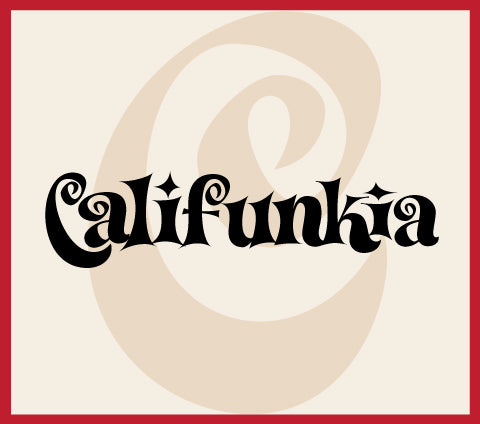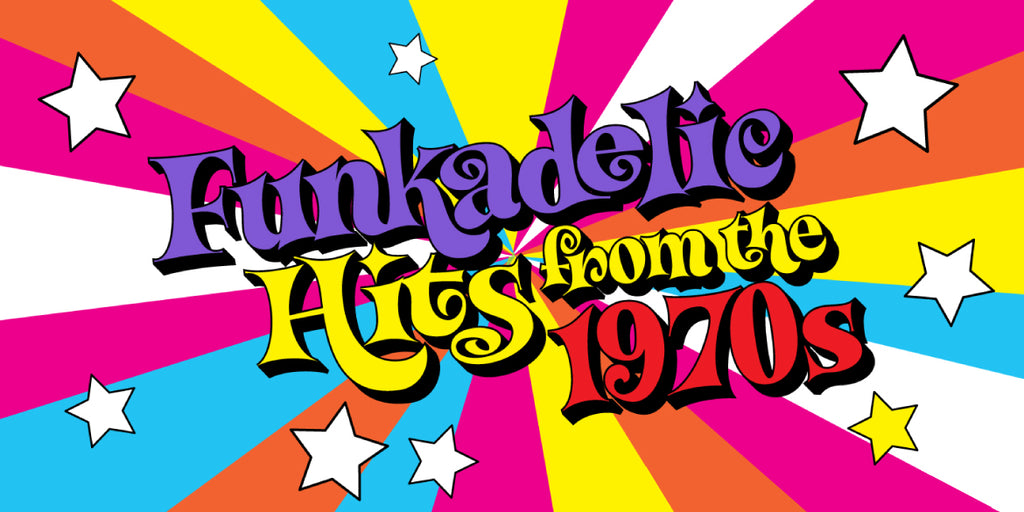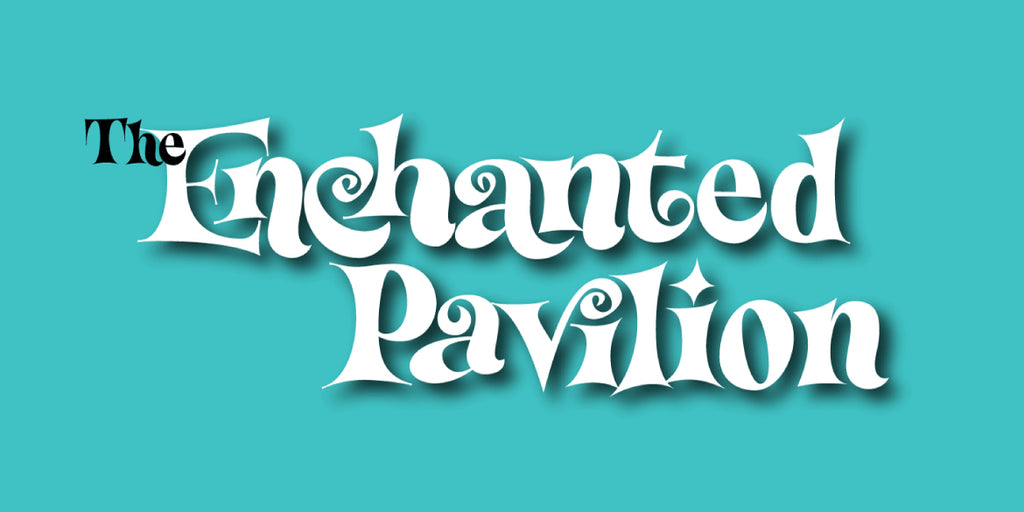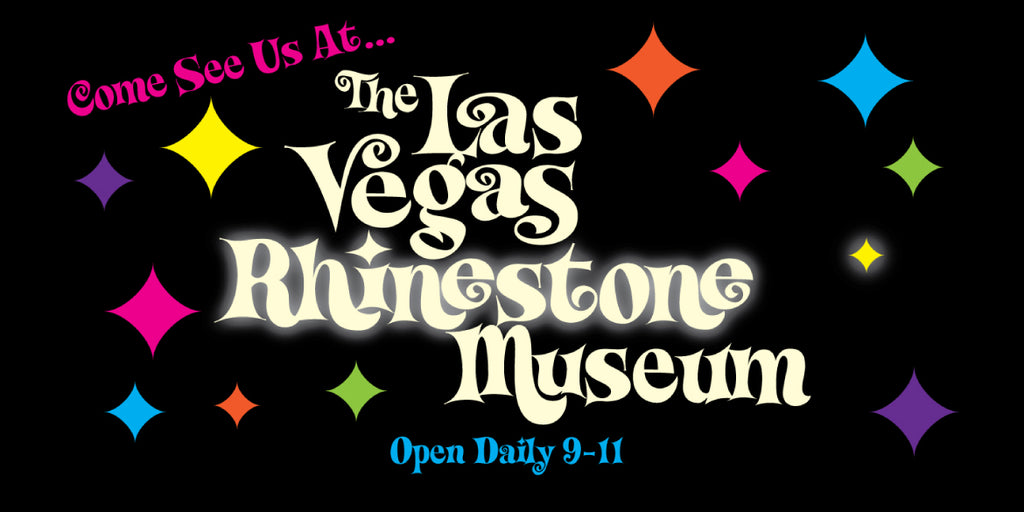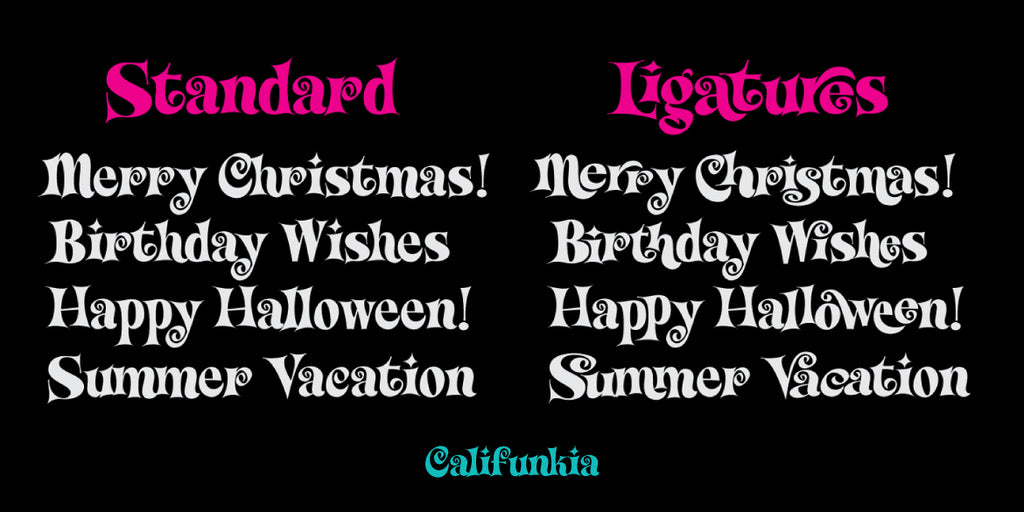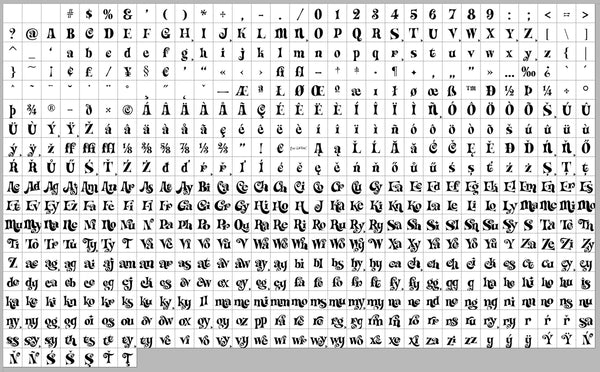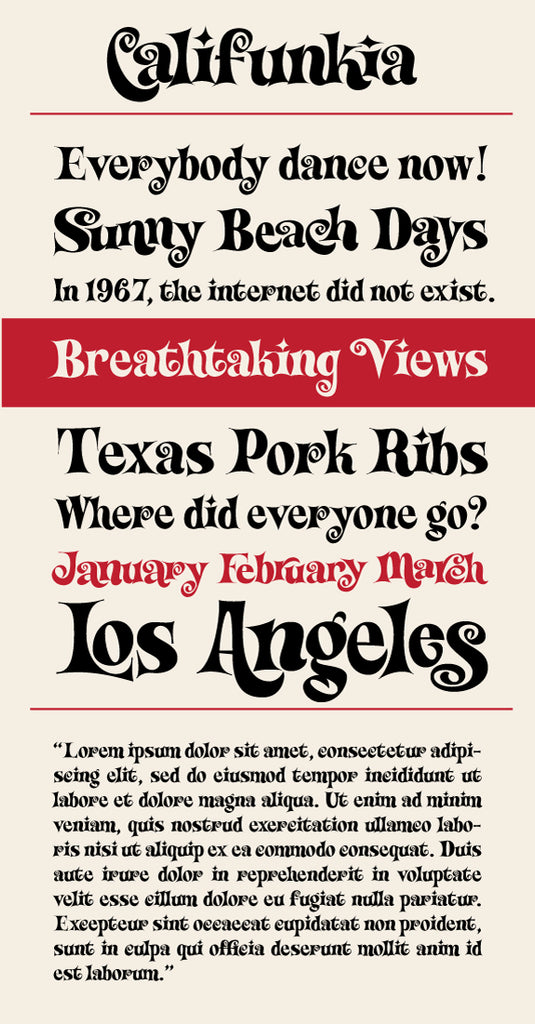
Califunkia
Califunkia is a heavy, cartoonish and fun font based on a hand lettered 1960s advertisement. The hand-lettered original gave me the idea to expand this into an OpenType font with multiple interlocking ligatures. There are over 260 alternate ligatures found the in the "Discretionary Ligatures" OpenType Feature, which will lend the font a hand drawn look. The ligature glyphs can also be accessed via the glyph palette in Adobe CC apps. Great for any design that requires a fun and light-hearted mood!